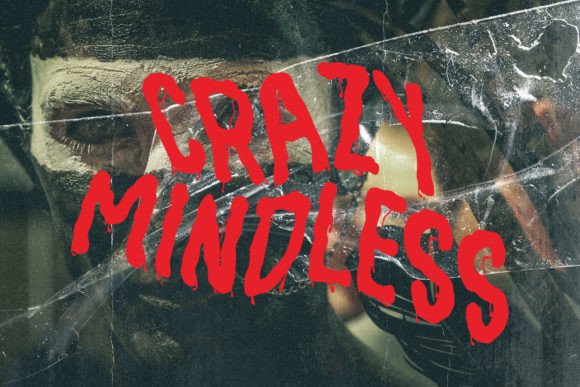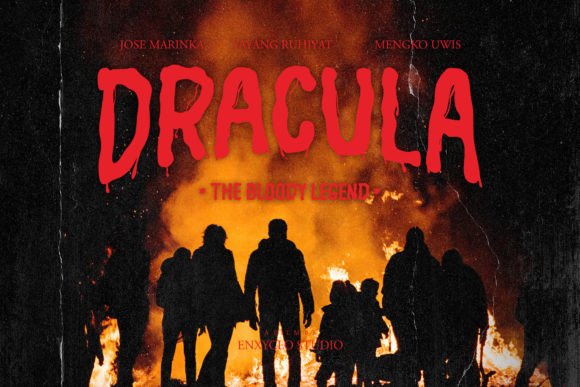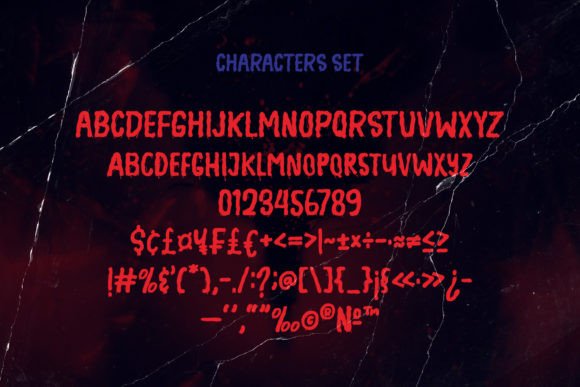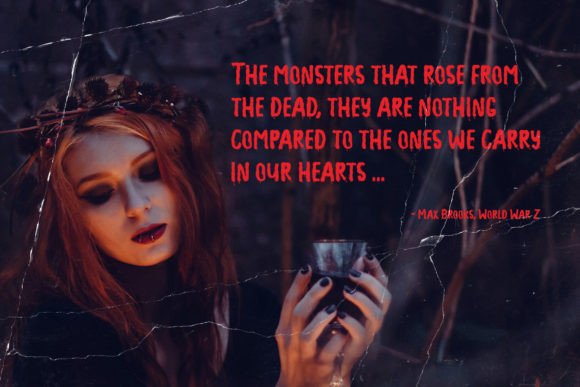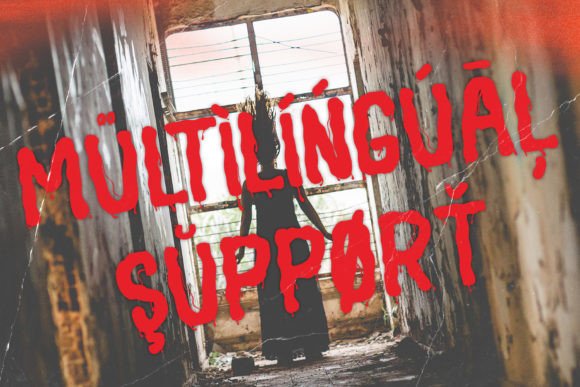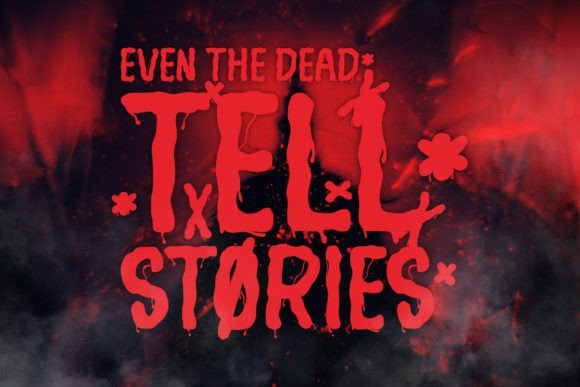
Introduction to Halloween Danger Font
One such game-changing design resource is the Halloween Danger Font, a blood-curdled display font that exudes an eerie, otherworldly vibe. With its high-quality design and transparent background, this font is the perfect addition to any creative project, guaranteed to send chills down the spines of your audience. Whether you’re working on a spooky-themed campaign or just need a bold, eye-catching element to spice up your design, the Halloween Danger Font is an invaluable tool in your design arsenal.
Key Features of Halloween Danger Font
- High-quality design resource for creative projects: Halloween Danger Font is a unique and spooky font perfect for adding a touch of Halloween magic to your designs.
- Transparent background: This font features a transparent background, making it easy to combine with other design elements and create stunning visual effects.
- Perfect for Halloween-themed designs: This font is specifically designed for Halloween-themed projects, making it an ideal choice for creating spooky, eerie, and mysterious designs.
- Great for digital and print projects: Halloween Danger Font is suitable for both digital and print projects, including social media graphics, posters, invitations, and more.
Honest Review: Halloween Danger Font
I recently stumbled upon the Halloween Danger Font while searching for a spooky design resource to use in a creative project. I was excited to try it out and see if it would add the perfect touch of eeriness to my design.
One of the things that stands out about the Halloween Danger Font is its high quality and crisp design. The font is well-designed and effectively conveys a sense of danger and menace, which is perfect for Halloween-themed projects.
Here are some of the things that work well about the Halloween Danger Font:
- ✨ Unique and creative design that adds a spooky touch to any project
- ✨ High quality and crisp design that looks great on any background
- ✨ Can be used with a transparent background to add an extra layer of spookiness
However, I did notice a few limitations to the font:
- ⚠️ Limited character set, making it difficult to use for longer texts
- ⚠️ May not be suitable for projects that require a more subtle or elegant design
Overall, I was impressed with the Halloween Danger Font and would definitely recommend it to designers looking for a creative and spooky design resource.
Halloween Danger Font
The Halloween Danger Font is perfect for:
- Halloween-themed designs and invitations
- Spooky blog posts and articles
- Creepy social media graphics